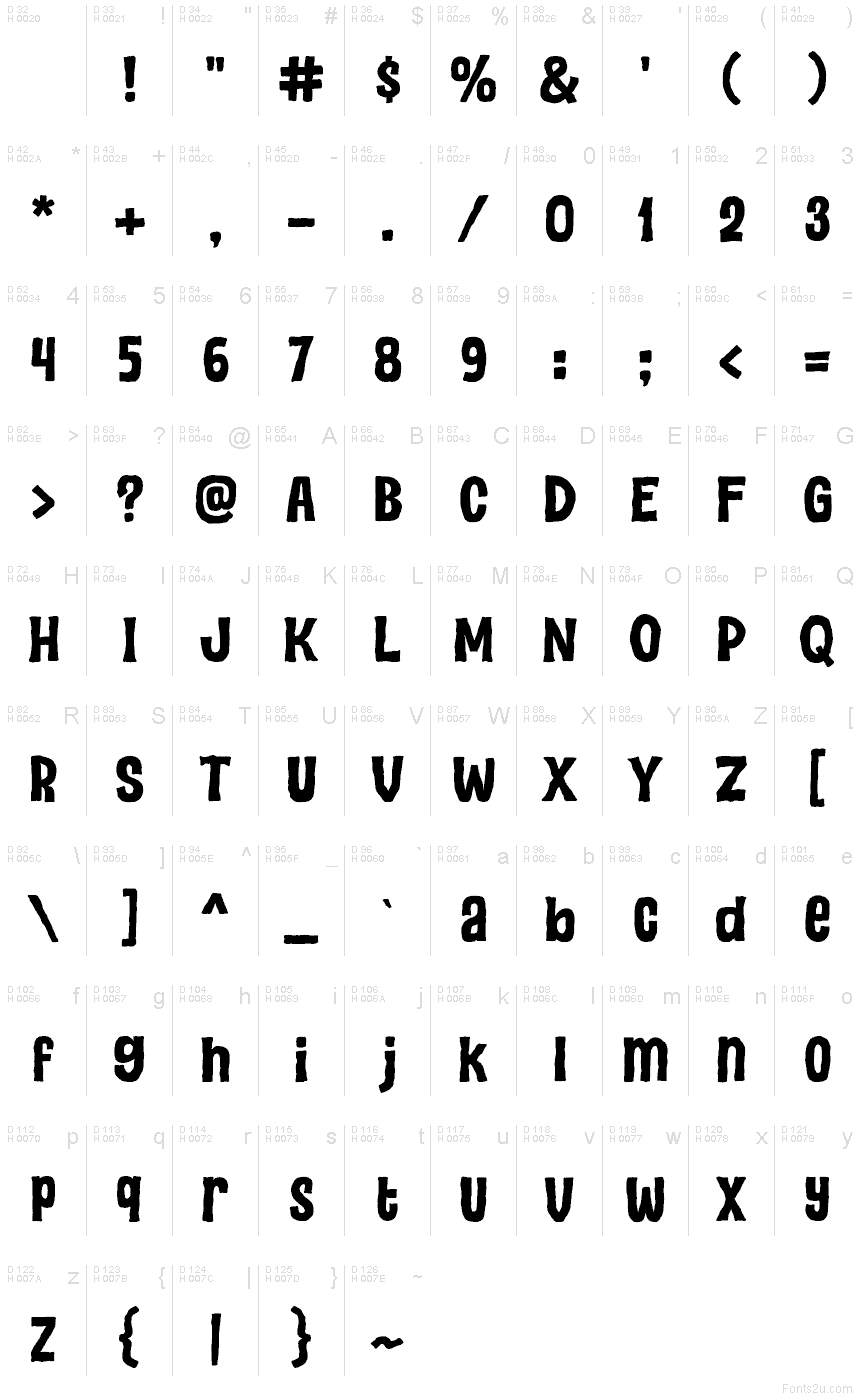
Grimmy Spooky font by Khurasan is a free Halloween display font built for loud, playful fright. Its chunky, rounded letters wobble like gummy shapes, with rough, inky edges that feel hand-cut and a little mischievous. The rhythm is bold and bouncy, so headlines jump off the page without slipping into grim territory-think spooky fun, not nightmare fuel.
Using Grimmy Spooky, your party invitations, haunted house posters, trick-or-treat signage, social media promos, classroom flyers, and candy packaging concepts all get instant October energy. This free font shines when set large with tight lines and classic pumpkin orange or slime green. For balance, pair it with a clean, thin sans for details or dates so the gooey headlines can do the haunting.